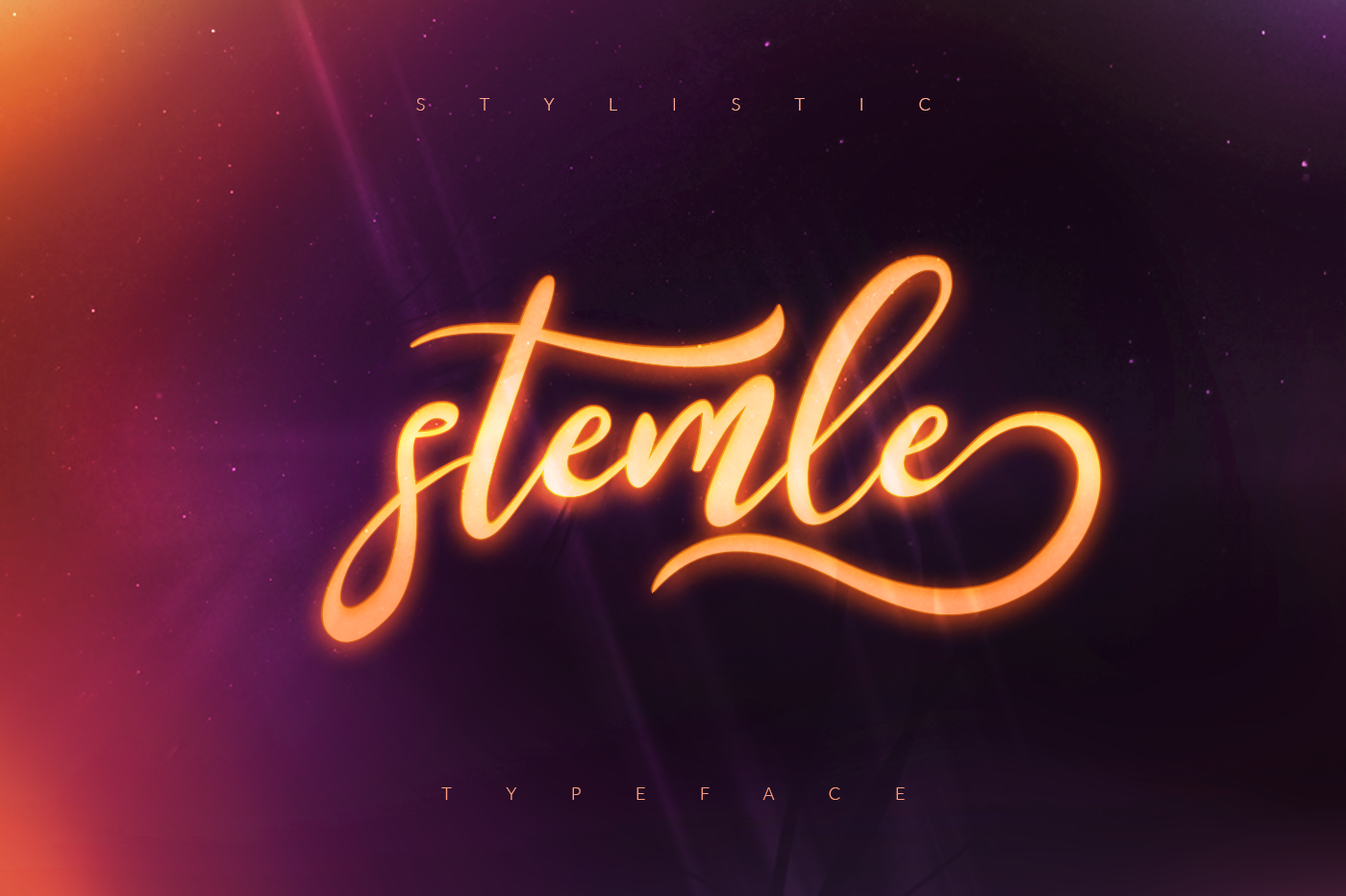
Stemle Stylistic Font
INTRODUCTION : Another excellent font by FONTART.net. Its name is STEMLE while we call it MPF ( Multi Purpose Font ). Why we call it MPF is simply because you might use it for almost all of your projects. It depends on your imagination and creativity.
Stemle is GREAT FOR the projects below but not limited to ;
- Any type of food industry such as restaurants
- Logo designs
- Blog pages
- Introductions
- Presentations and more and more! Just imagine, apply and see the difference !
- Swashes lowercase characters